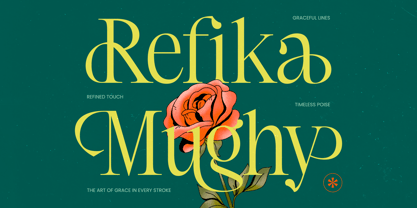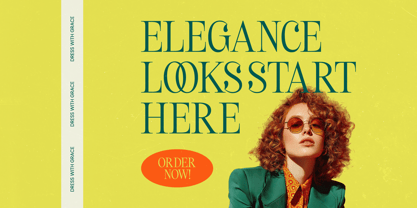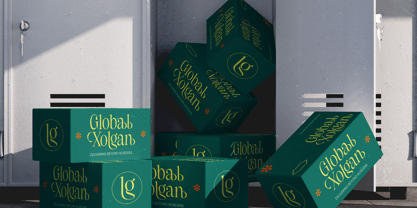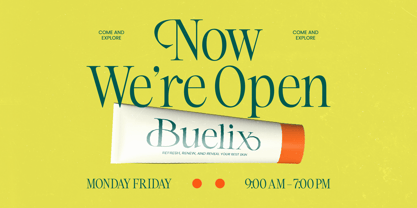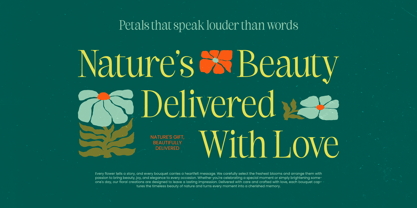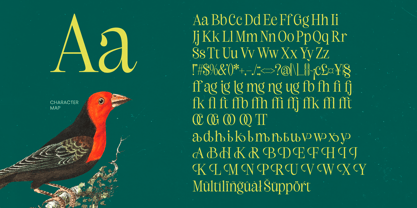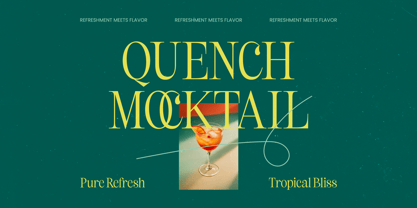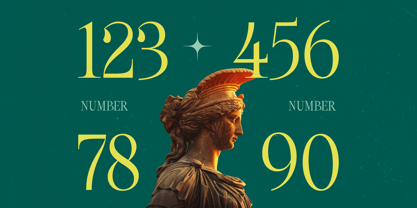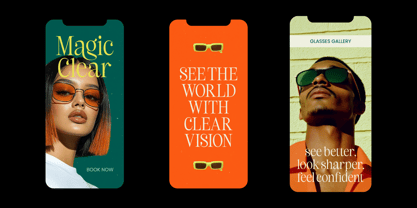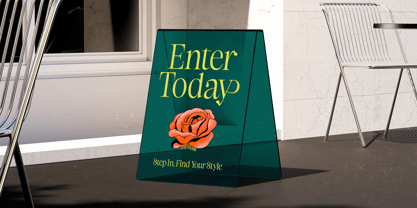
Refika Mughy
La familia tipográfica Refika Mughy fue diseñada por Heru Utama Putra y publicada por Timelesstype Studio. Refika Mughy contiene 2 estilos y opciones de paquete familiar. Más información sobre esta familia
Elevate your design aesthetic with the Refika Mughy – Thin Serif Display, a typeface that embodies sophisticated elegance and modern-classic charm. This high-contrast serif is meticulously crafted to command attention, offering a refined visual identity for projects that require a touch of class. By blending delicate hairlines with sharp, purposeful strokes, Refika Mughy – Thin Serif Display serves as a premier typographic solution for high-end visual storytelling and contemporary layouts.